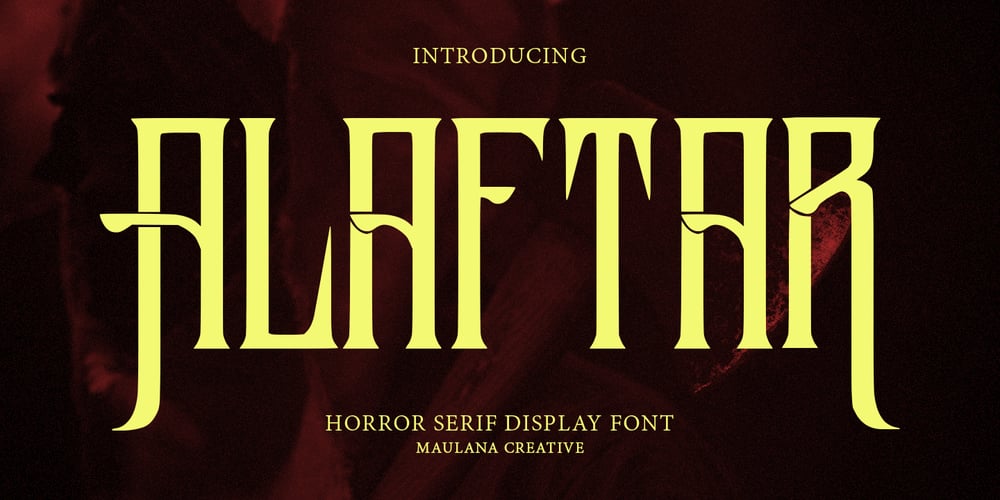
MC Alaftar
MC Alaftar font
MC Alaftar Font Family was designed by Gilang Maulana and published by Maulana Creative. MC Alaftar contains 1 styles and family package options. Alaftar serif display typeface. Heavy stroke, fun character with a bit of ligatures. To give you an extra creative work. Alaftar serif display typeface support multilingual more than 100+ language. This font is good for logo design, Social media, Movie Titles, Books Titles, a short text even a long text letter and good for your secondary text font with script or serif. Make a stunning work with Alaftar serif display typeface.–UppercaseCheers,Maulana Creative